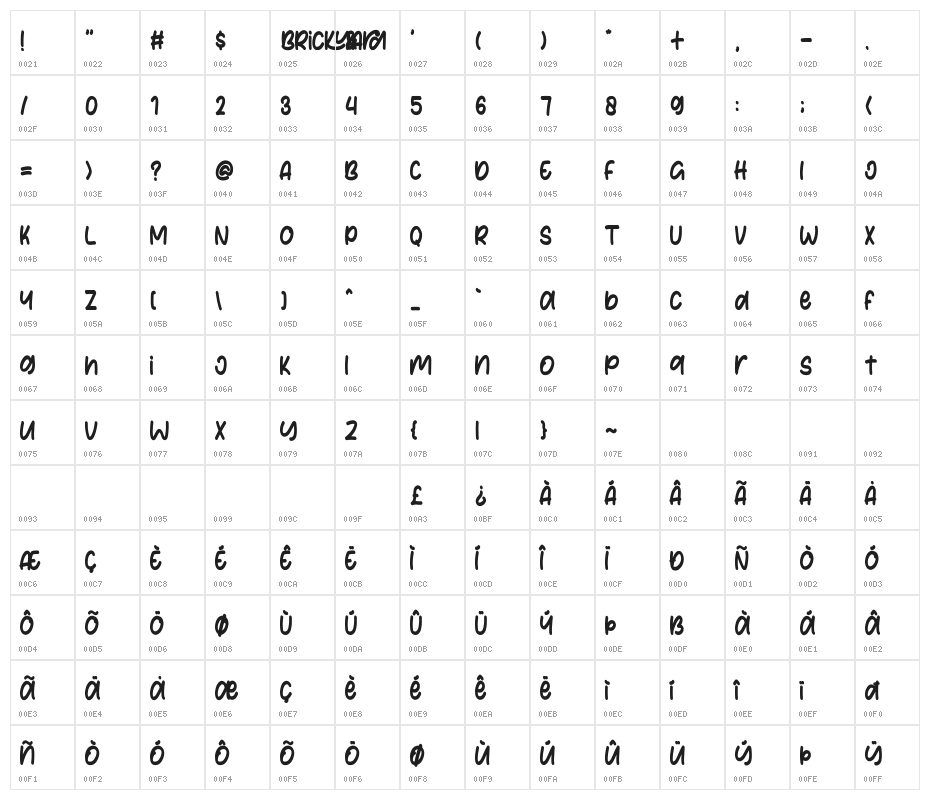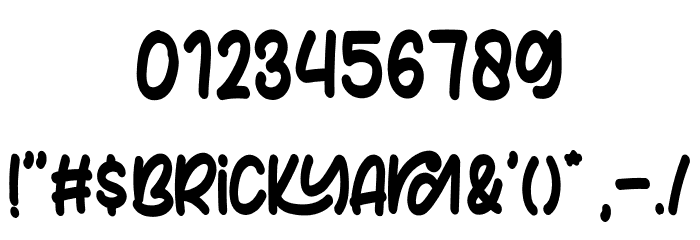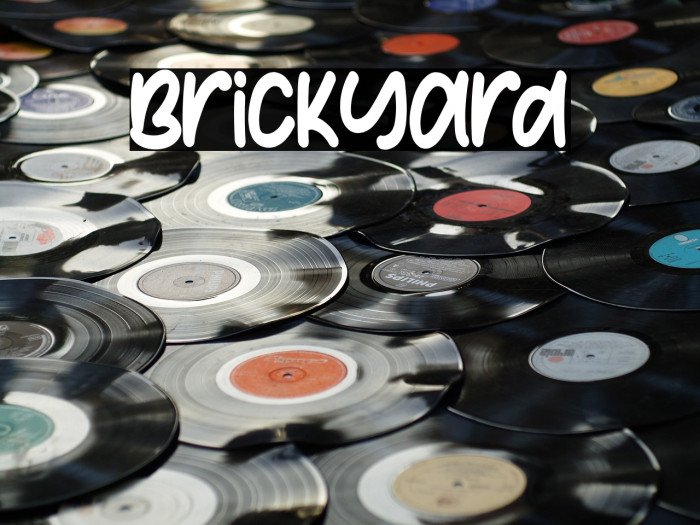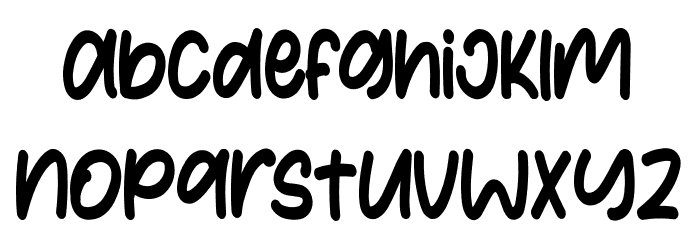
Brickyard Font
Brickyard Description
This playful and bold font features rounded, thick strokes that give it a friendly and approachable appearance. The letters are slightly slanted, adding a dynamic and energetic feel. The consistent stroke width throughout the characters ensures a uniform look, while the rounded edges soften the overall design. This font is highly legible, making it suitable for a variety of applications. The numbers and special characters maintain the same playful style, ensuring cohesion across all elements.